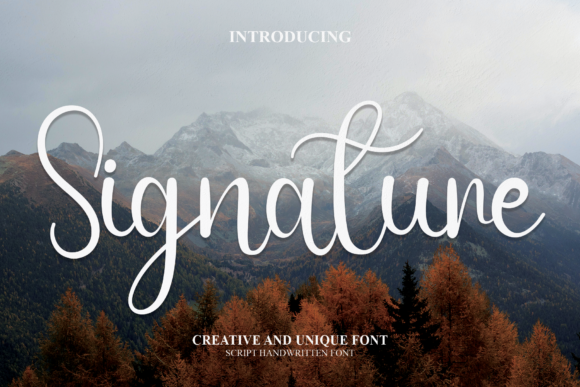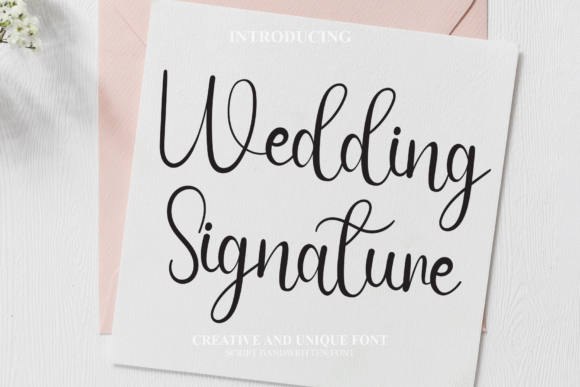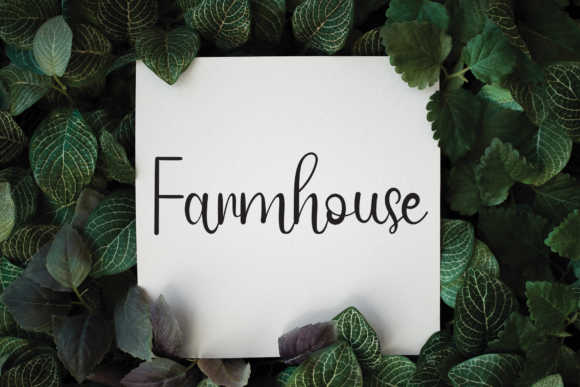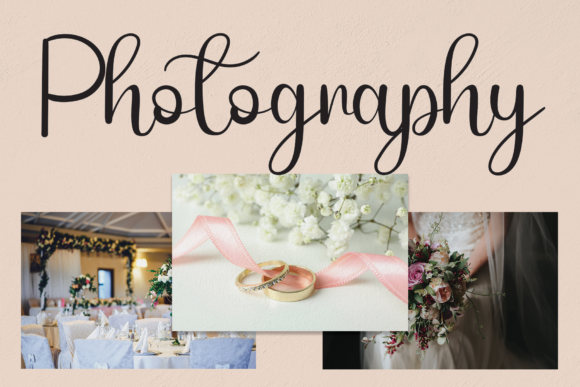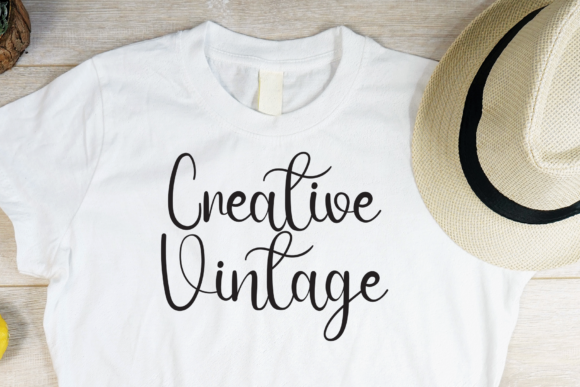
Signature font is an exquisite and trendy script font, renowned for its delicate strokes and elegant demeanor. Tailored to elevate any branding endeavor, from logos to t-shirt designs and an array of creative products, it exudes an unparalleled sophistication that seamlessly integrates into diverse contexts.
With its fluid lines and graceful curves, Signature font captures attention effortlessly, commanding admiration and leaving a lasting impression. Its versatility knows no bounds, effortlessly adapting to both professional and casual settings with unparalleled finesse.
Whether adorning a luxury brand’s logo or enhancing the visual appeal of merchandise, Signature font lends an air of refinement and exclusivity to any project it graces. Its timeless appeal transcends trends, ensuring enduring relevance and enduring charm.
Crafted with meticulous attention to detail, each letter of Signature font embodies a harmonious blend of style and legibility. Its innate beauty lies in its ability to evoke a sense of sophistication while maintaining readability, making it an indispensable asset for designers and businesses alike.
In the realm of branding, where first impressions are paramount, Signature font shines as a beacon of excellence, elevating brands to new heights of distinction. Its effortless elegance captivates audiences, forging memorable connections and fostering brand loyalty.
In essence, Signature font is not merely a typeface; it is a statement of refinement, a testament to the power of design in captivating hearts and minds. Its allure transcends boundaries, making it the quintessential choice for those who seek to leave an indelible mark on the world of design and beyond.